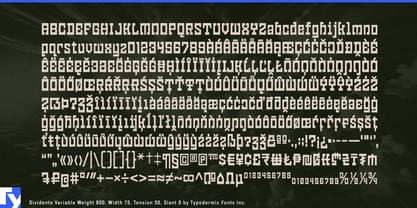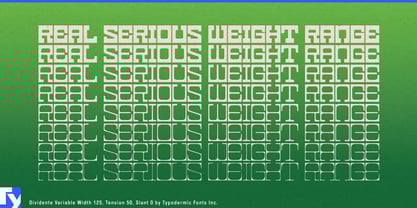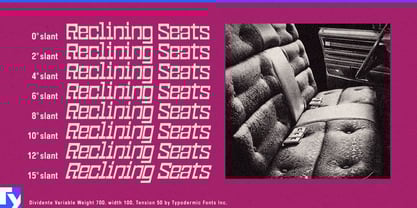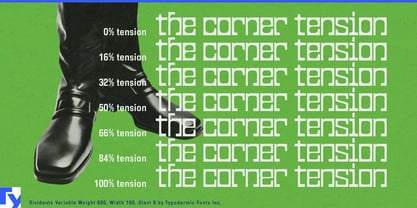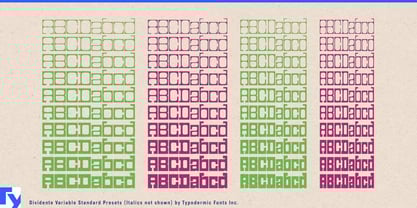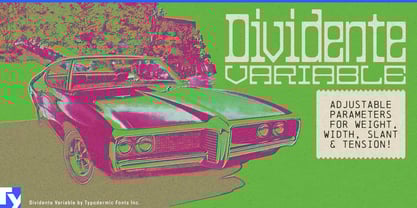
Dividente Variable
by Typodermic
Dividente Variable takes the retro-modern spirit of Dividente and hands you the controls. Built with four variable axes—weight, width, slant, and tension—it invites you to fine-tune every curve and proportion until the typography fits your vision exactly.
The heart of Dividente Variable is the same blend of square exteriors and superelliptical inner curves that made the original so distinctive. But now you can nudge those shapes anywhere between airy elegance and heavyweight impact, stretch them from ultra-condensed to billboard-wide, or give them a subtle lean—or a dramatic one.
The tension axis is where Dividente Variable truly breaks from the pack. Adjust it to tighten the curves into crisp, near-square corners for a harder, more angular look, or loosen it until the forms round into playful, almost bubbly shapes. The result is a typeface that can live comfortably in psychedelic poster art, high-fashion branding, or bold editorial spreads, all without leaving the same font file. Because it’s a variable font, every setting between the extremes is yours to explore—not just fixed steps. This means your typography can match the exact mood, space, and hierarchy you need, without swapping families or files. Extensive Latin language support and a full symbol set ensure it’s just as functional as it is expressive.
Dividente Variable is a spectrum. From mod-era swagger to sleek contemporary minimalism, you can dial in the perfect mix and make it entirely your own.
Designers: Ray Larabie
Foundry: Typodermic